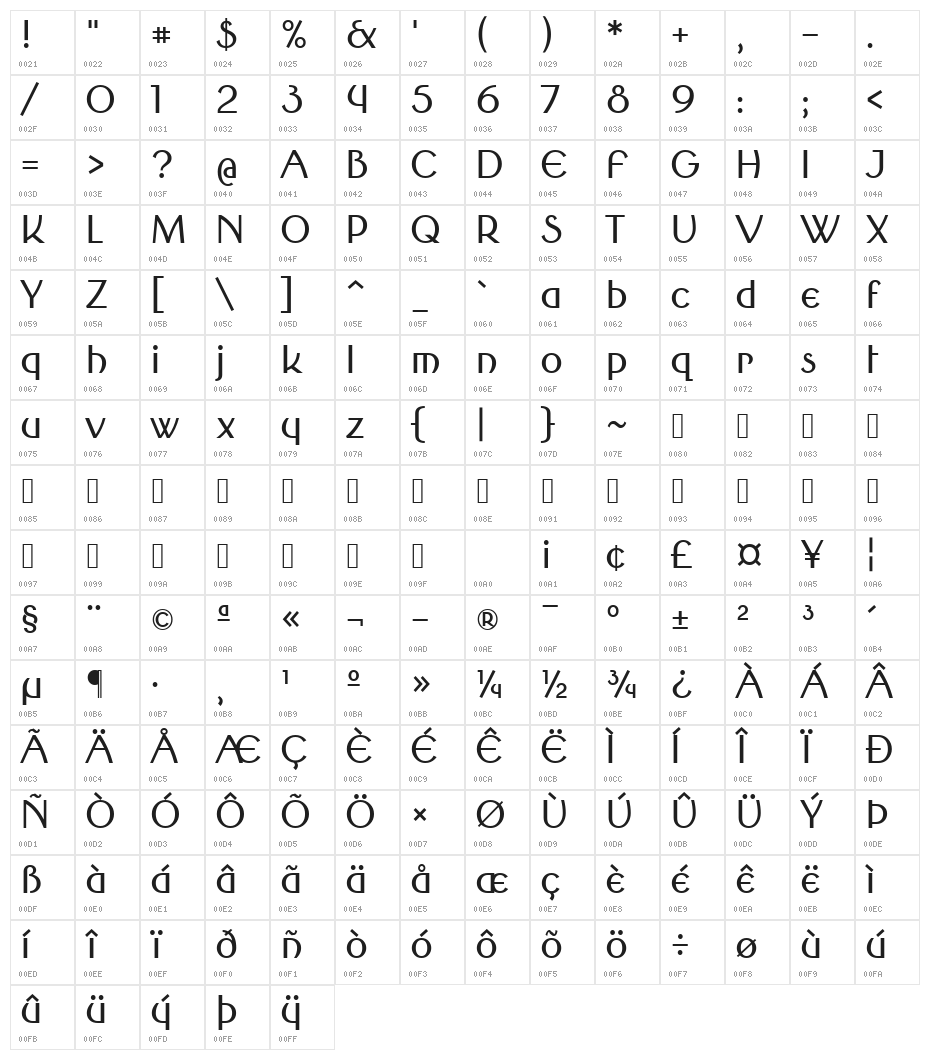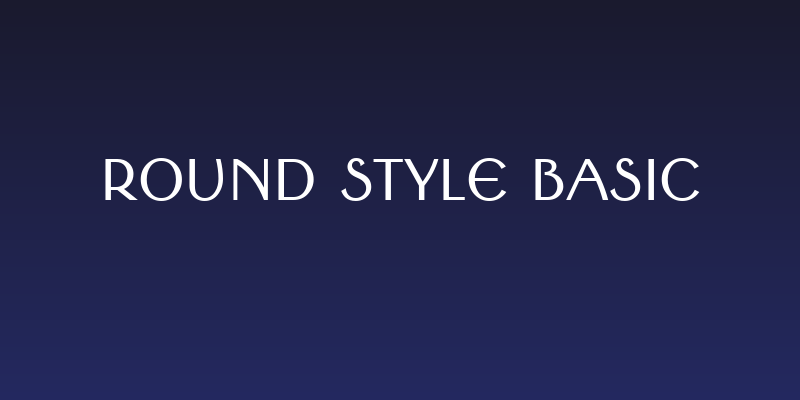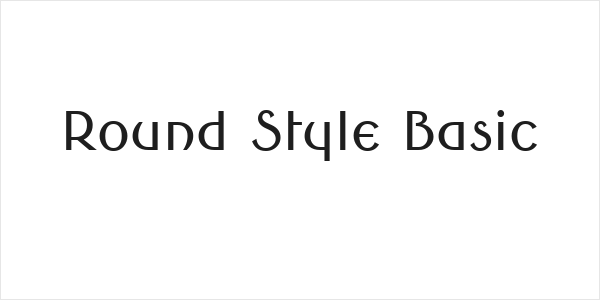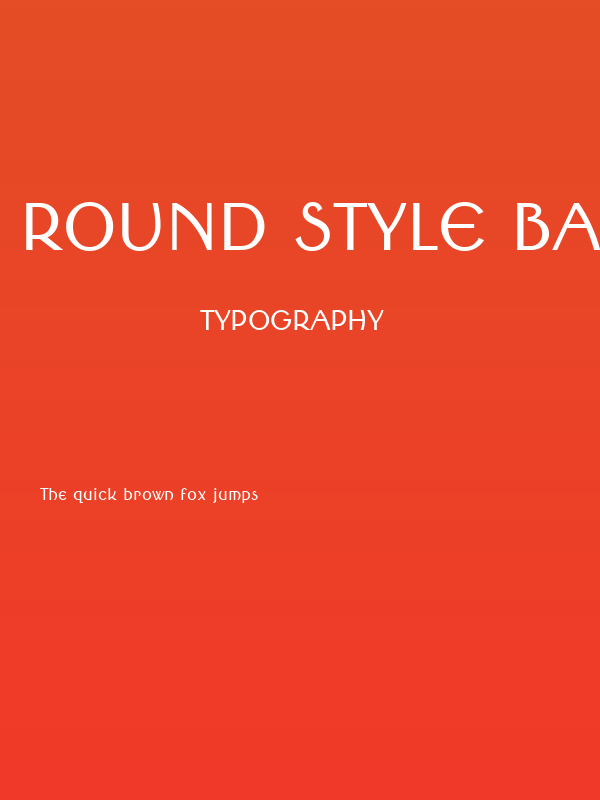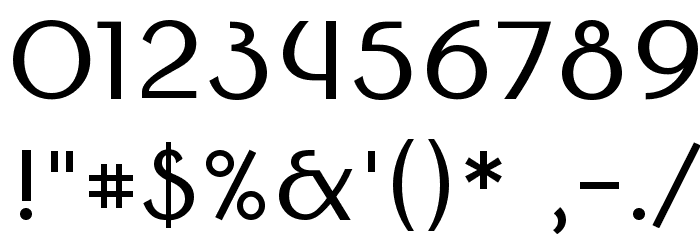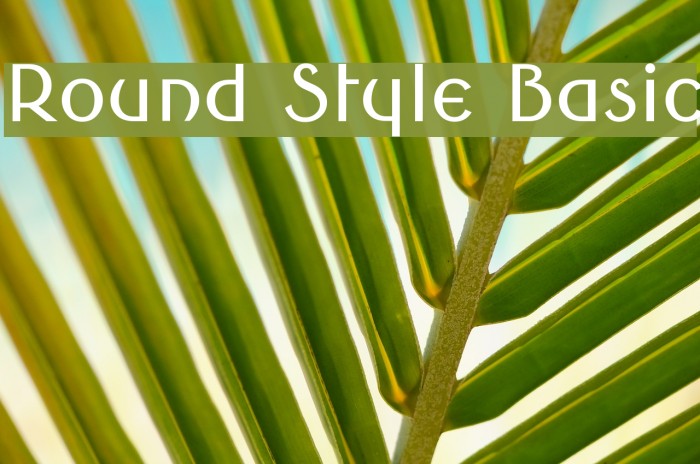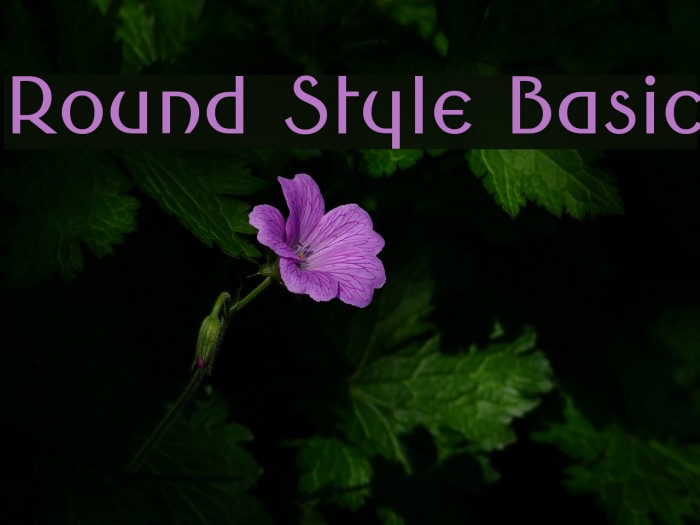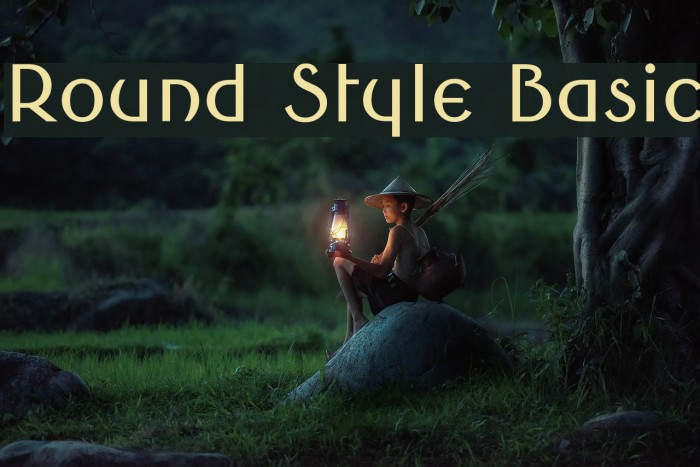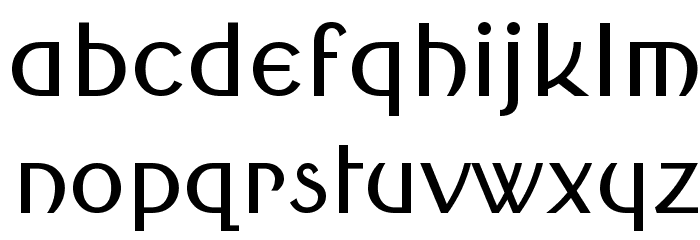
Round Style Basic Font
Round Style Basic Description
This font features a clean, geometric design with rounded edges that give it a friendly and approachable appearance. The characters are well-balanced, with consistent stroke widths that provide a harmonious look. The uppercase letters are bold and prominent, while the lowercase letters maintain a similar weight, ensuring readability. The numerals are distinct and easy to distinguish, making them suitable for various applications. Special characters are designed with the same rounded style, integrating seamlessly with the rest of the font. Overall, this font exudes a modern and minimalist aesthetic, making it versatile for both digital and print media.